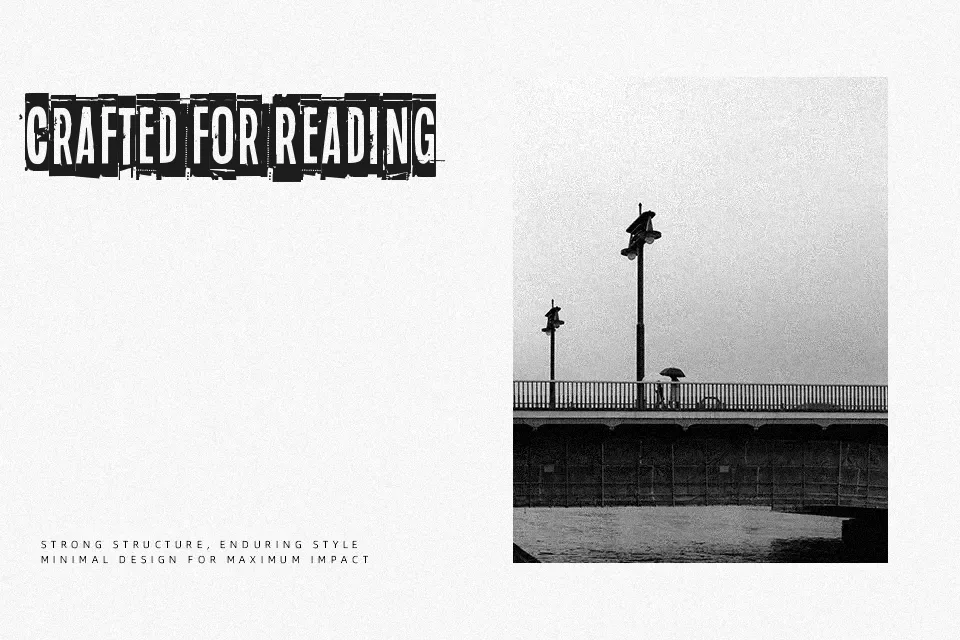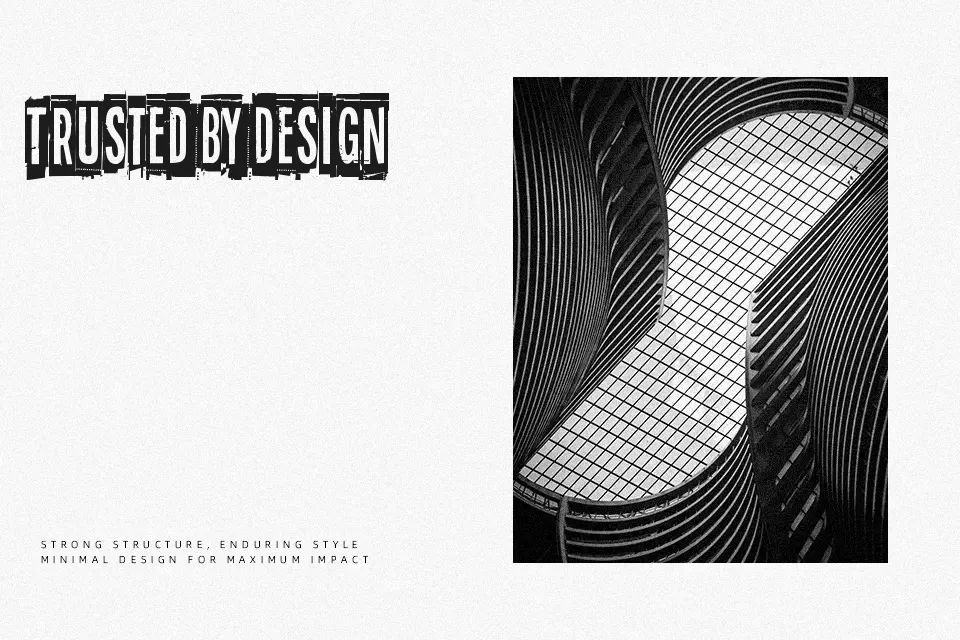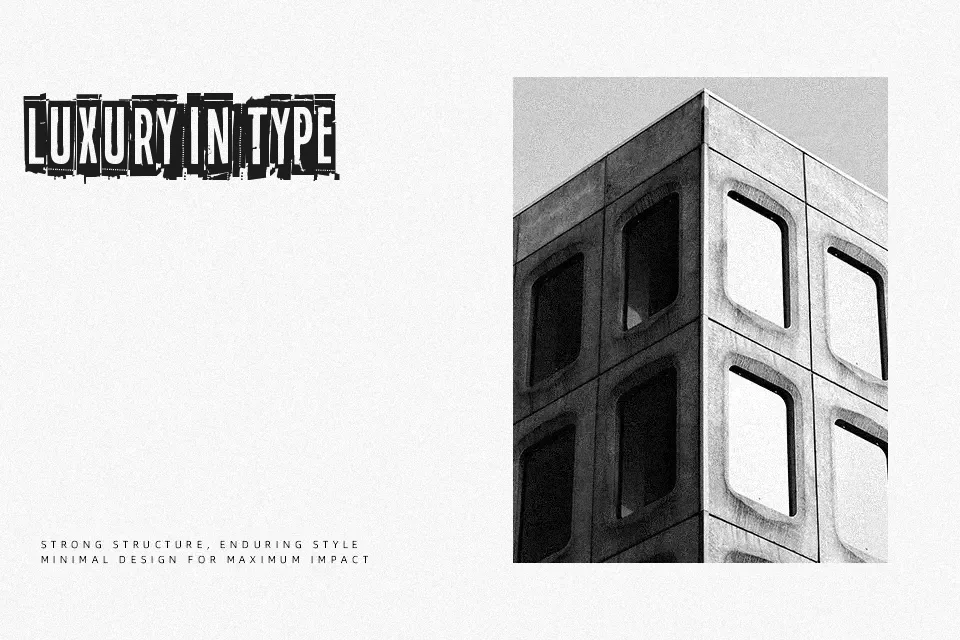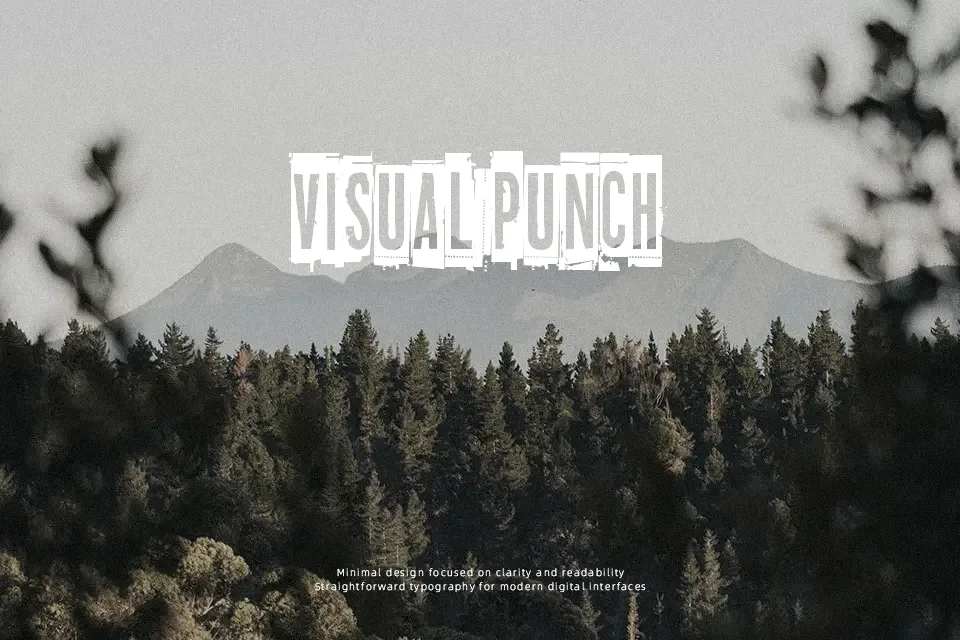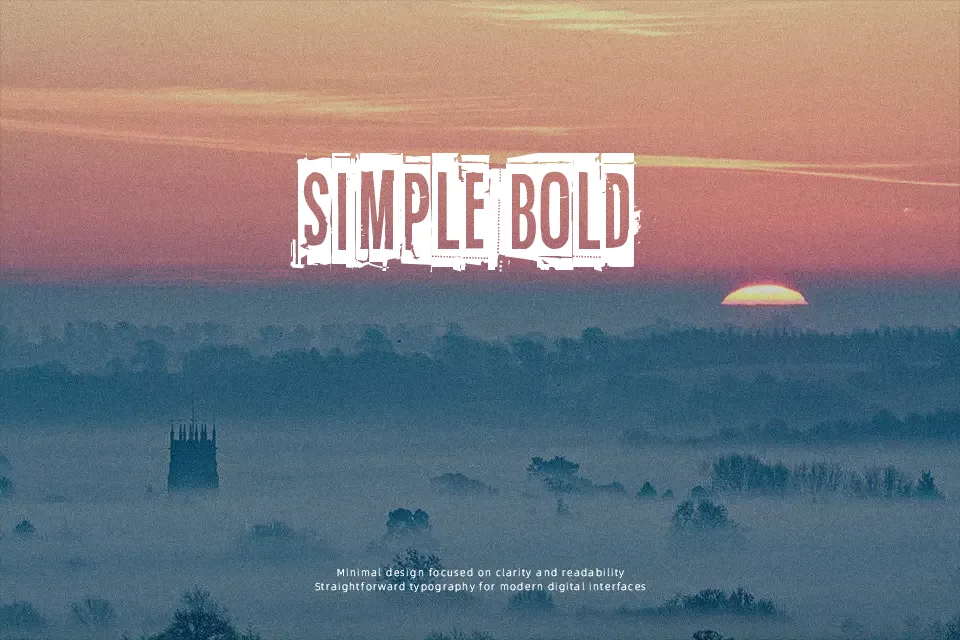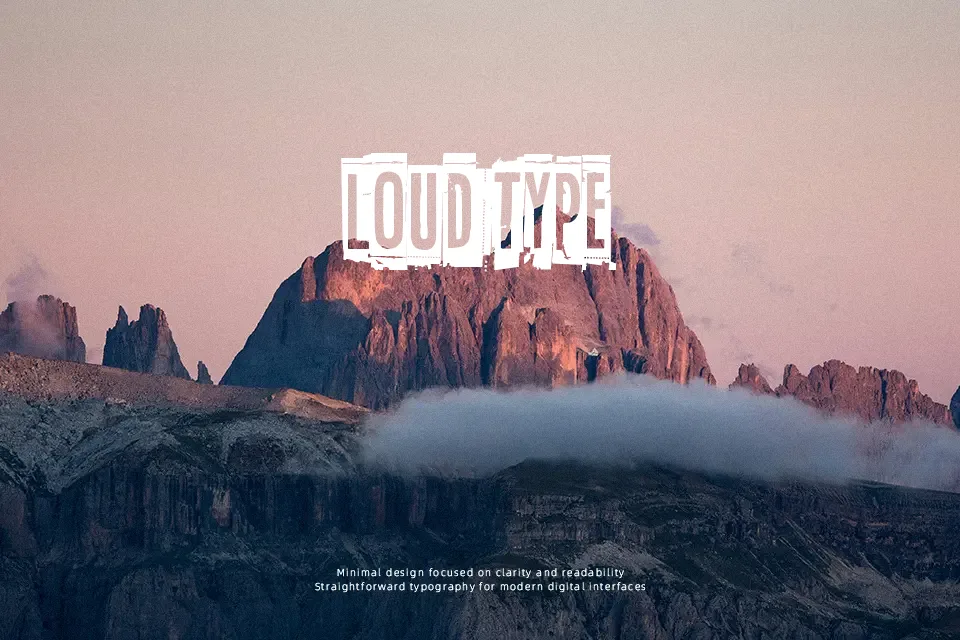
Blockheads Font
Designed by Juha Korhonen
Blockheads by Juha Korhonen is a highly textured, distressed typeface that commands attention with its raw, distorted visual style. Defined by a striking white-on-black aesthetic, the bold, condensed letterforms look like gritty block cutouts, heavily saturated with a grunge vibe. This intense, rough structure makes the font exceptional for designing edgy music posters, rebellious apparel graphics, and dramatic headline typography where a clean look is intentionally avoided. However, because of its heavy distortion and inverted block layout, Blockheads is practically unreadable when used for small body text or minimal corporate branding. It shines primarily as an artistic, aggressive display tool rather than a functional reading typeface.
Edgy music and gig posters
Rebellious streetwear branding
High-impact grunge headlines
Small body text or paragraphs
Clean corporate interface design
Formal event invitations
Perfect for branding, headline, and music, with a artistic and condensed style.